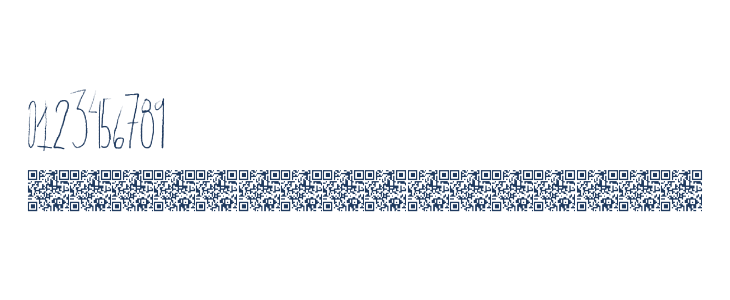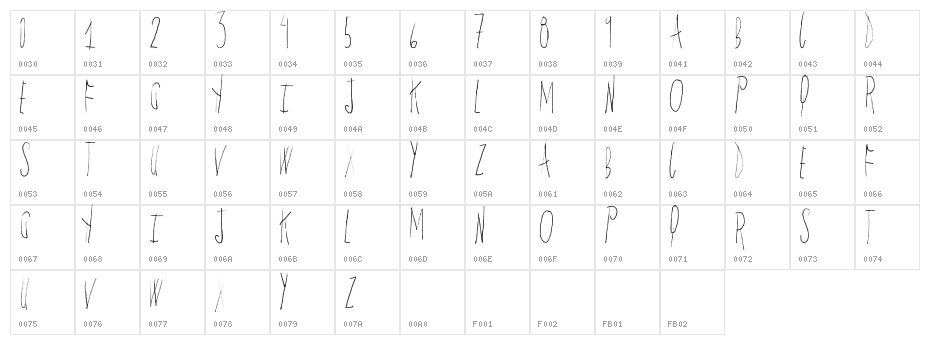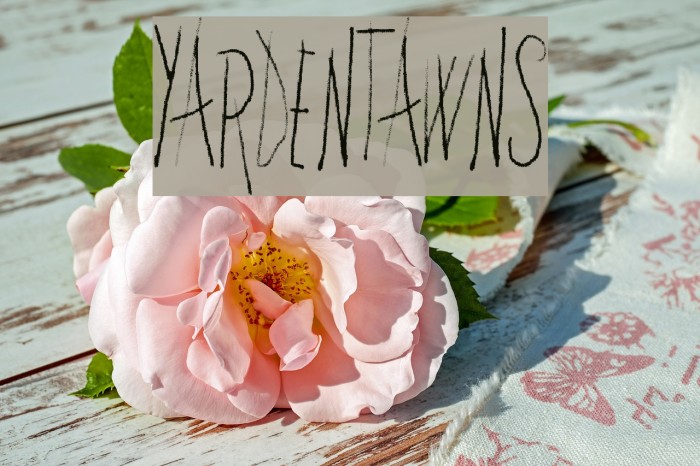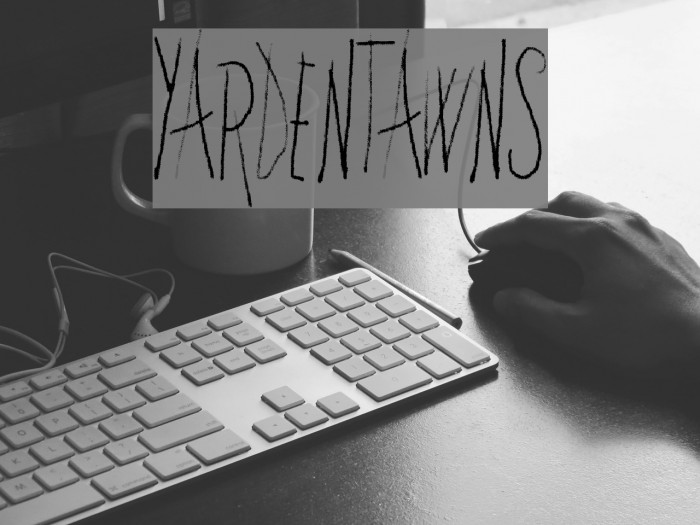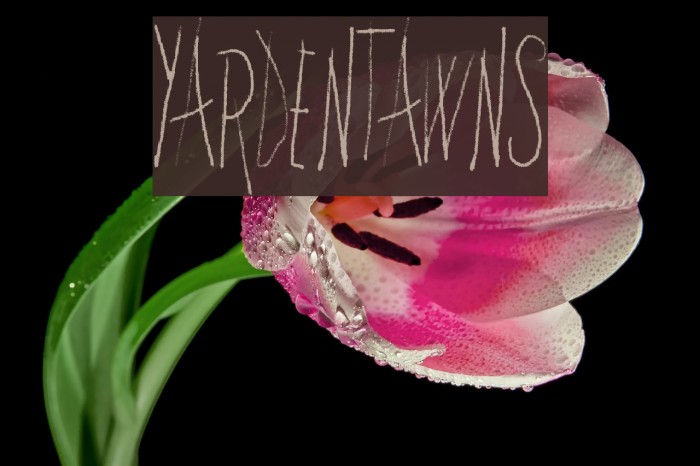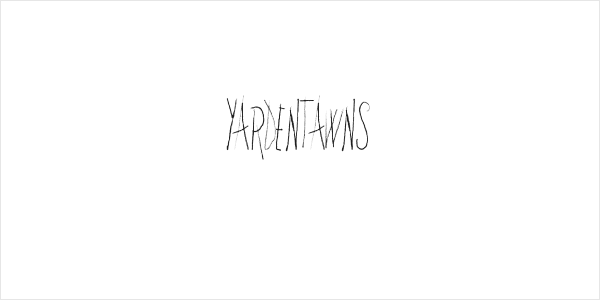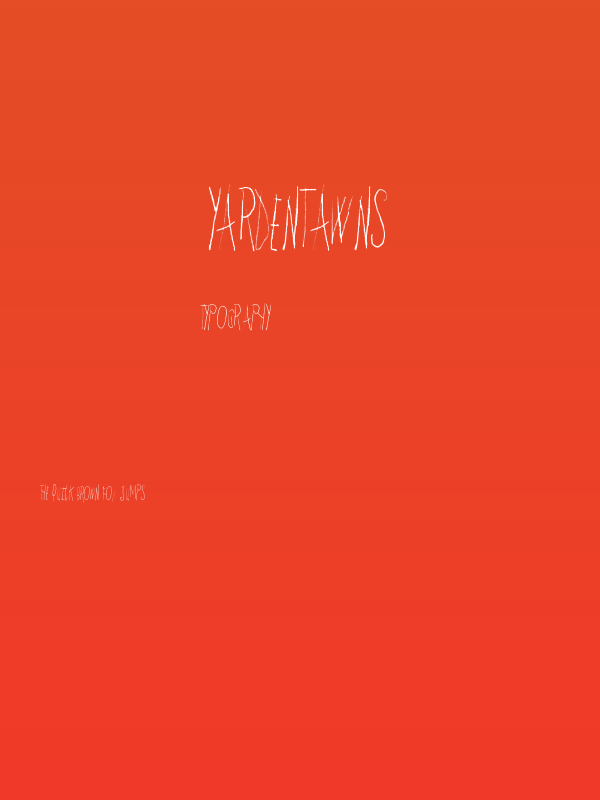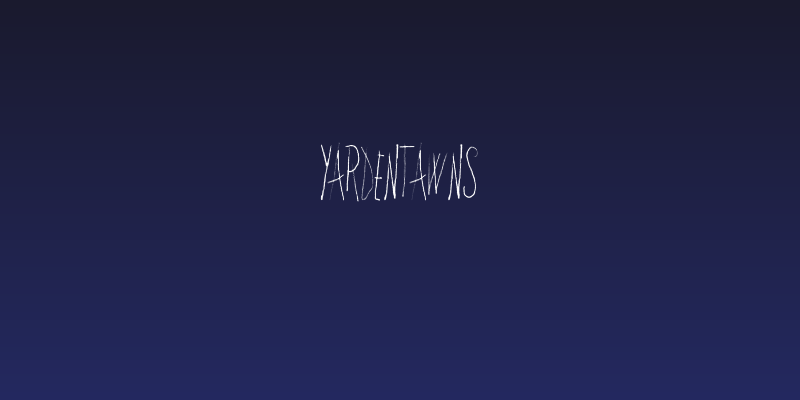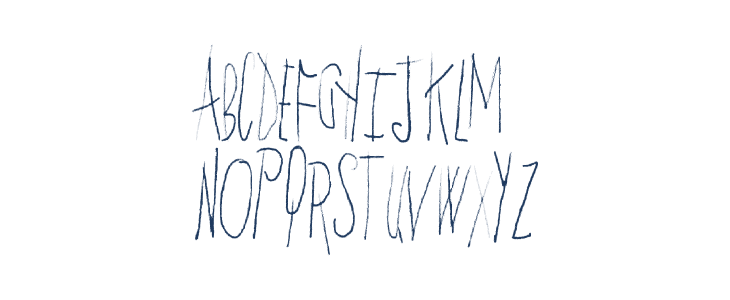
YardenTawns Font
YardenTawns Description
This font exhibits a unique, hand-drawn style with elongated and slightly irregular letterforms, giving it a whimsical and artistic appearance. The characters are tall and narrow, with a playful yet sophisticated touch. The strokes are uneven, adding to the handcrafted feel, while maintaining legibility. The uppercase and lowercase letters share a consistent style, with some characters featuring distinctive loops and curves. The numbers and special characters complement the overall aesthetic, making it suitable for creative and informal projects.
| Proposed Projects | Ideal for creative projects such as greeting cards, posters, and artistic branding. |